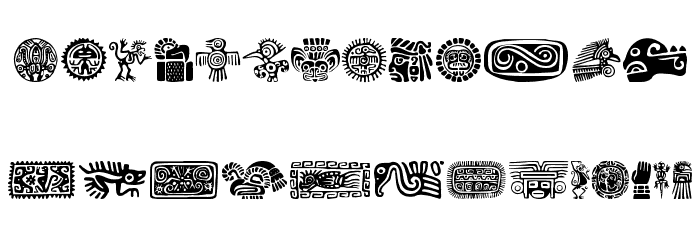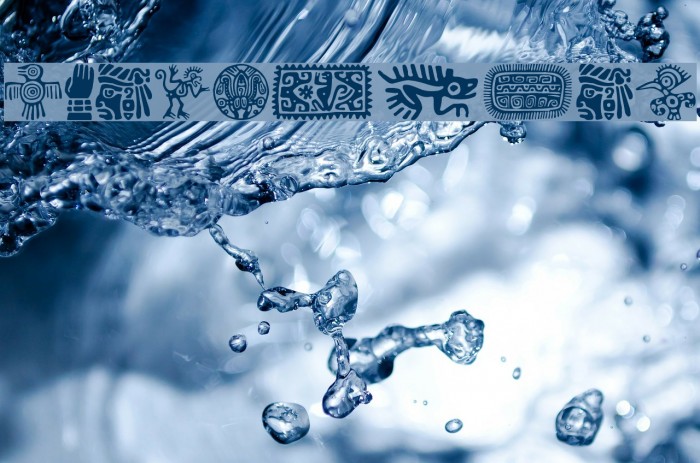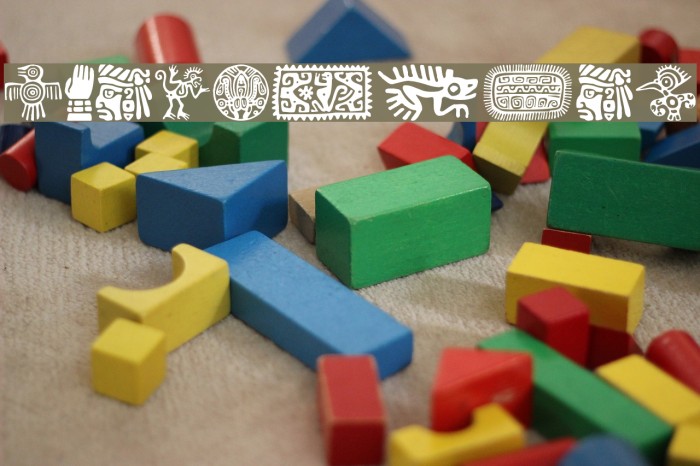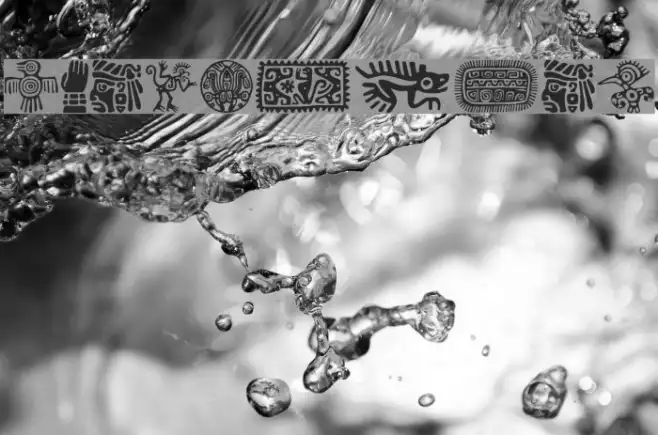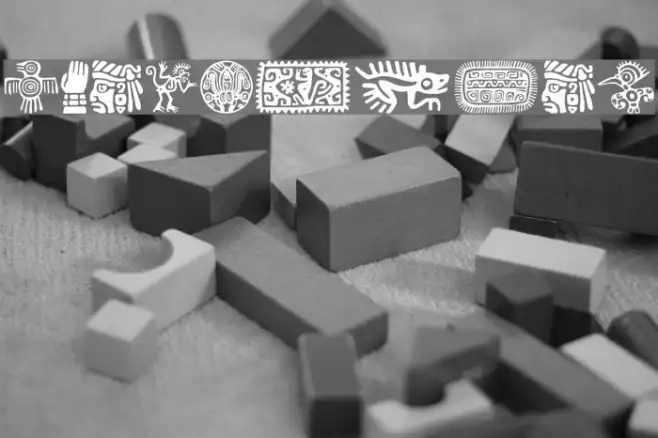
MexicanMotif Font
This design features intricate motifs inspired by traditional Mexican art, showcasing a variety of symbols and patterns that reflect cultural heritage. The characters are highly decorative, with each symbol intricately detailed, resembling ancient glyphs or carvings. The style is bold and striking, with a strong emphasis on geometric shapes and symmetrical patterns. The motifs include representations of animals, abstract shapes, and cultural symbols, each crafted with a high level of artistry. The overall appearance is both historical and artistic, making it suitable for projects that aim to evoke a sense of tradition and cultural richness.
Intricate and bold motifs inspired by traditional Mexican art, featuring detailed cultural symbols.
- Proposed Projects: Ideal for cultural exhibitions, themed event decorations, artistic posters, and educational materials about Mexican heritage.
- Use Case: Logos, Artistic projects, Cultural displays